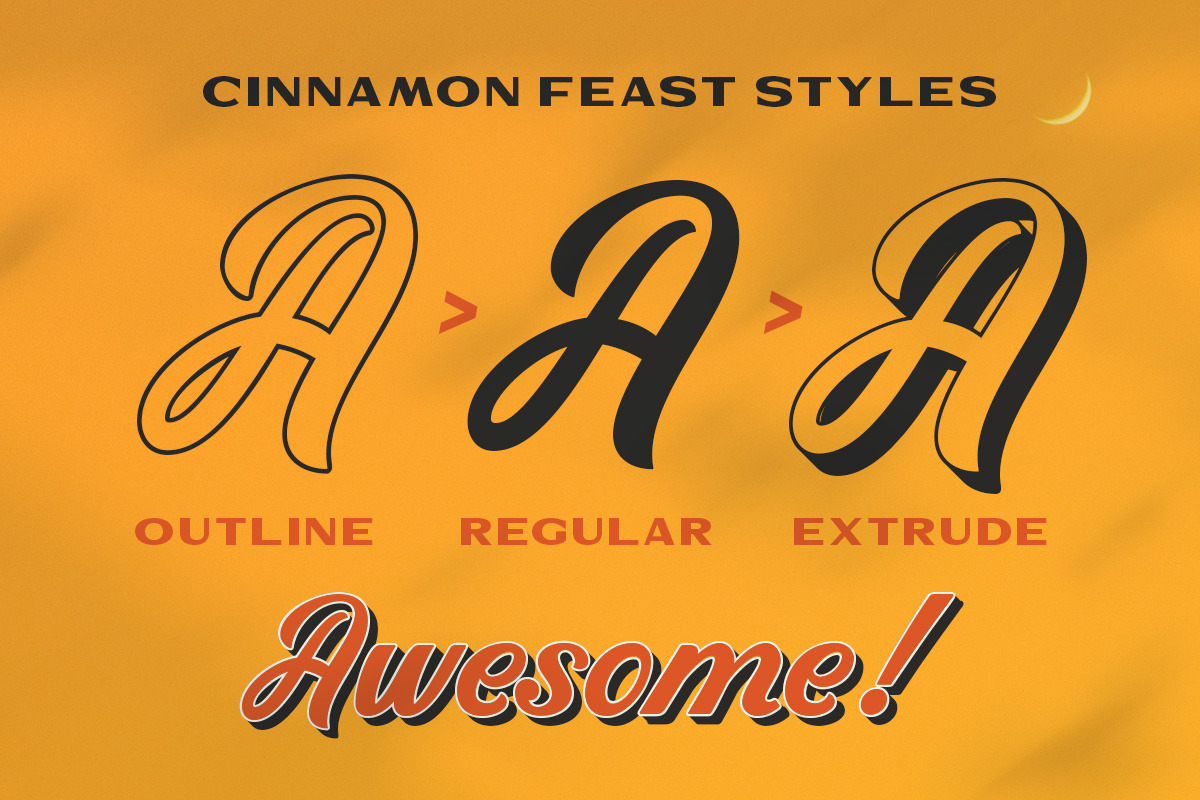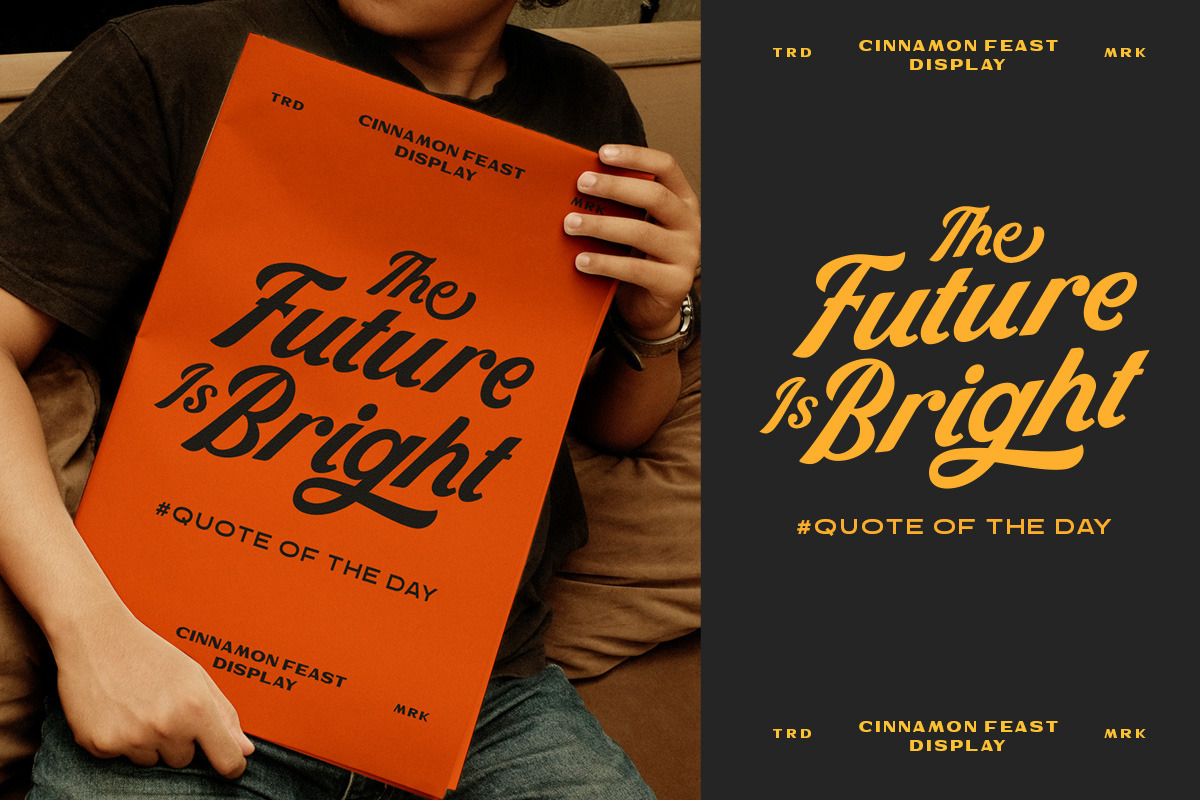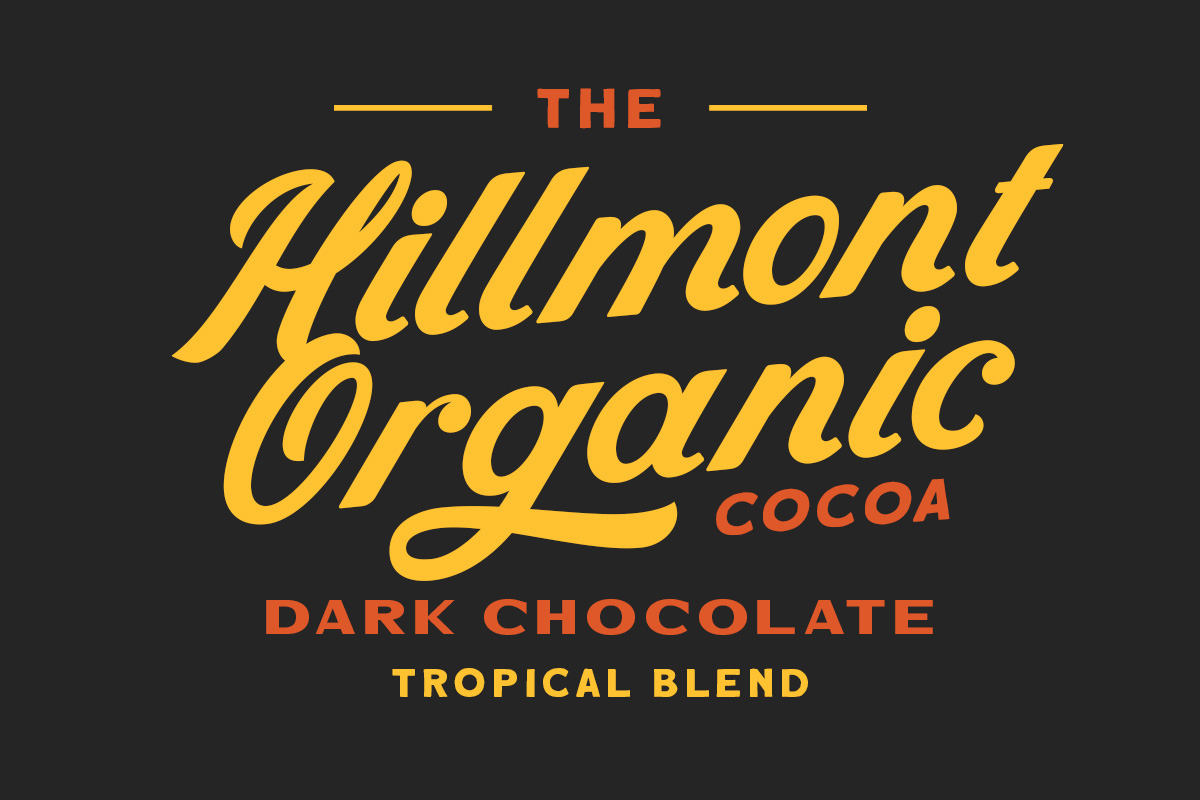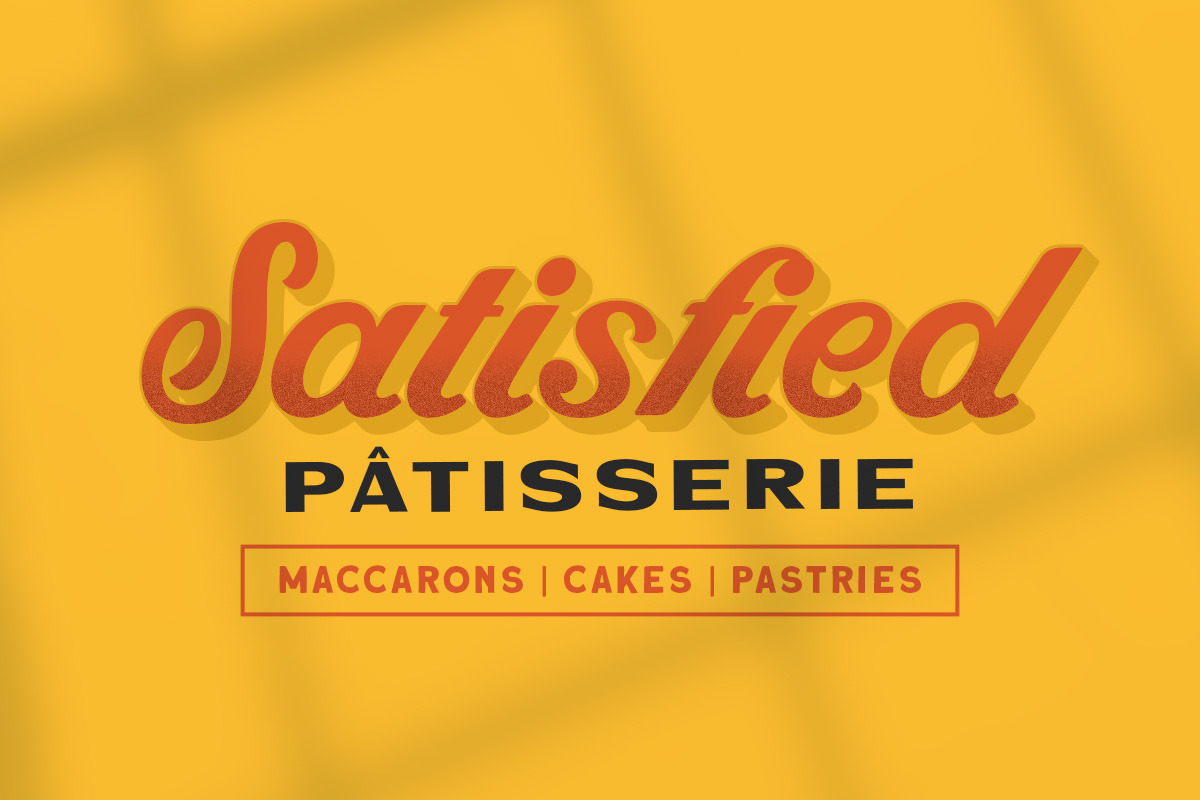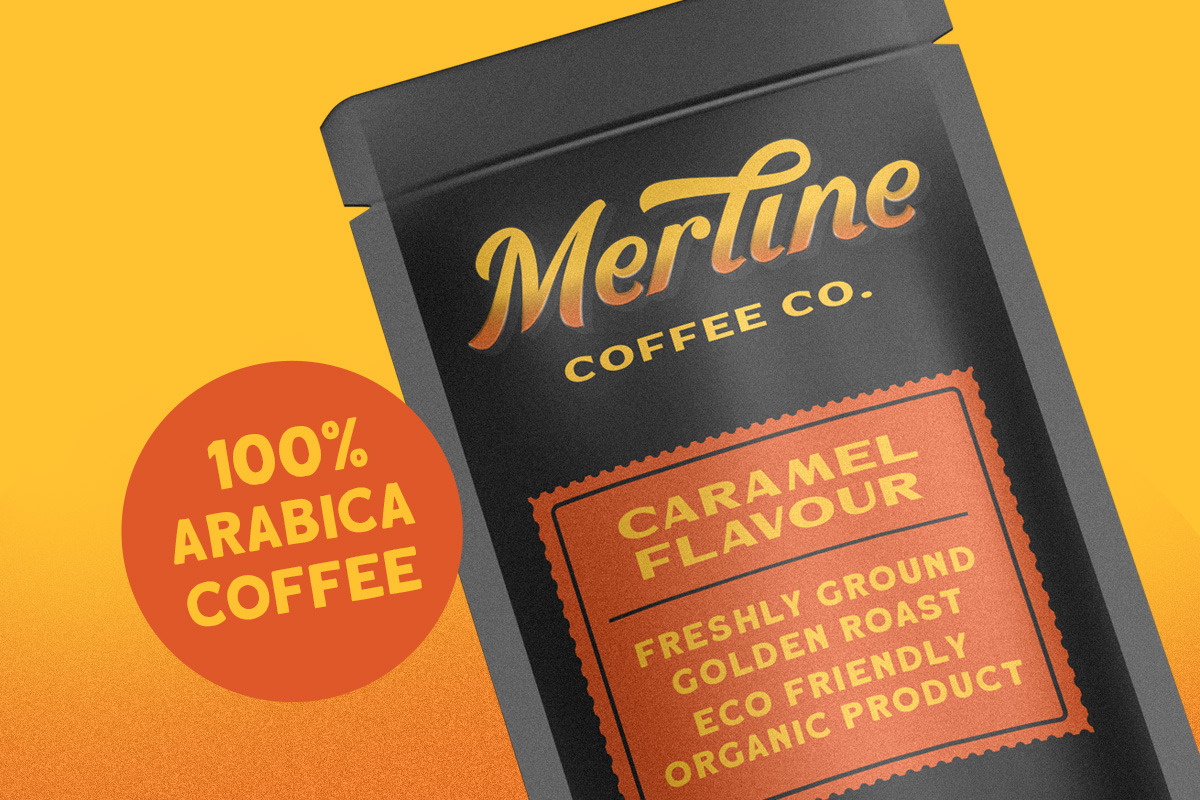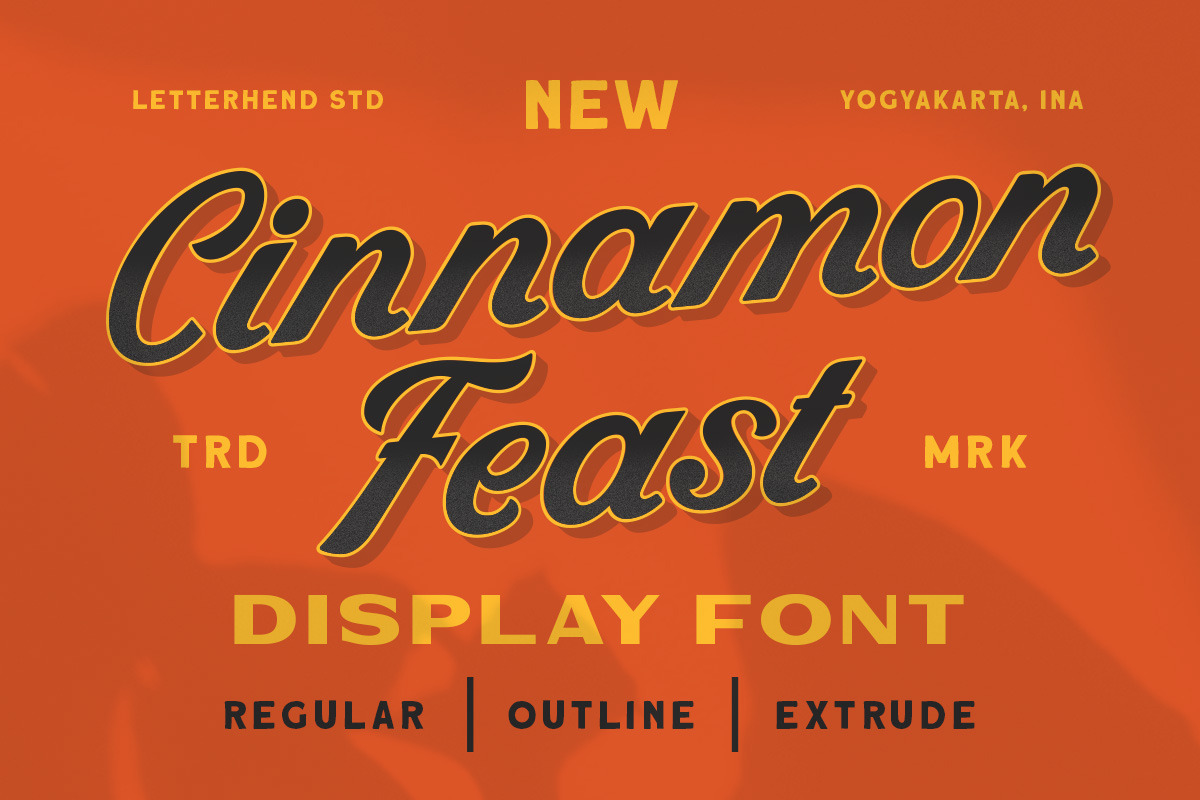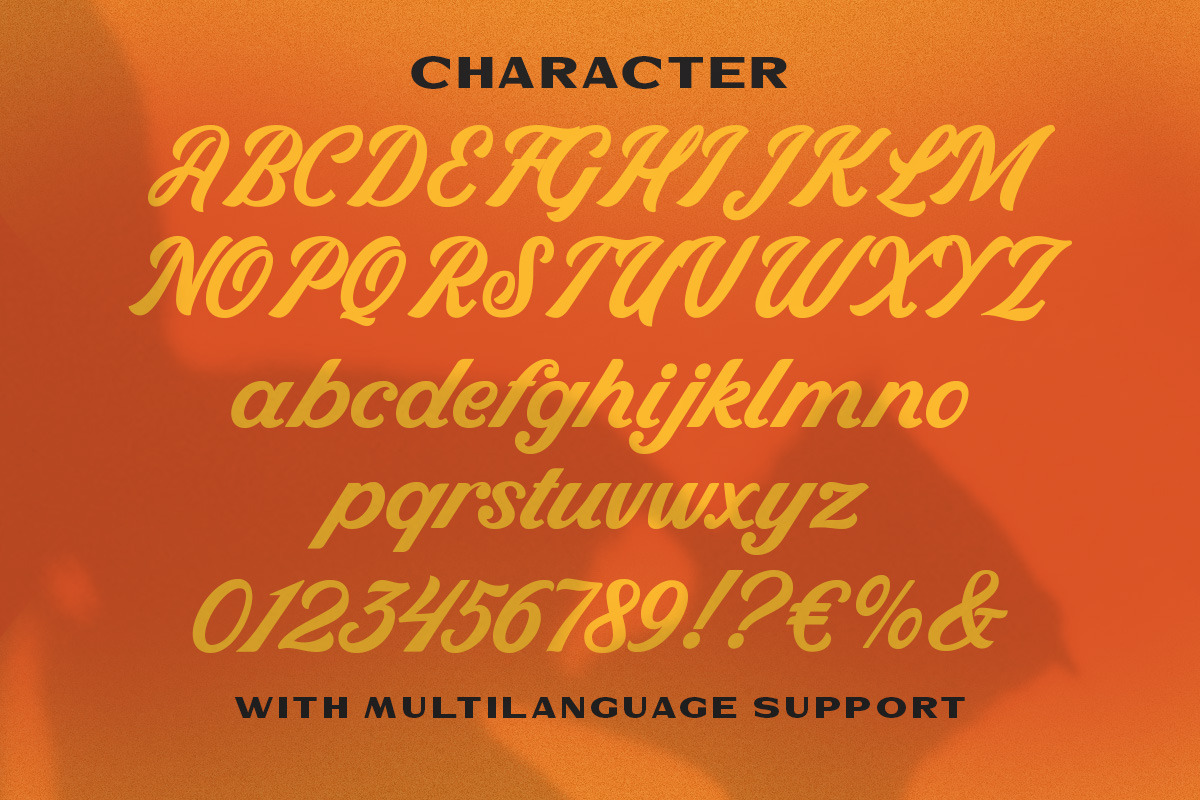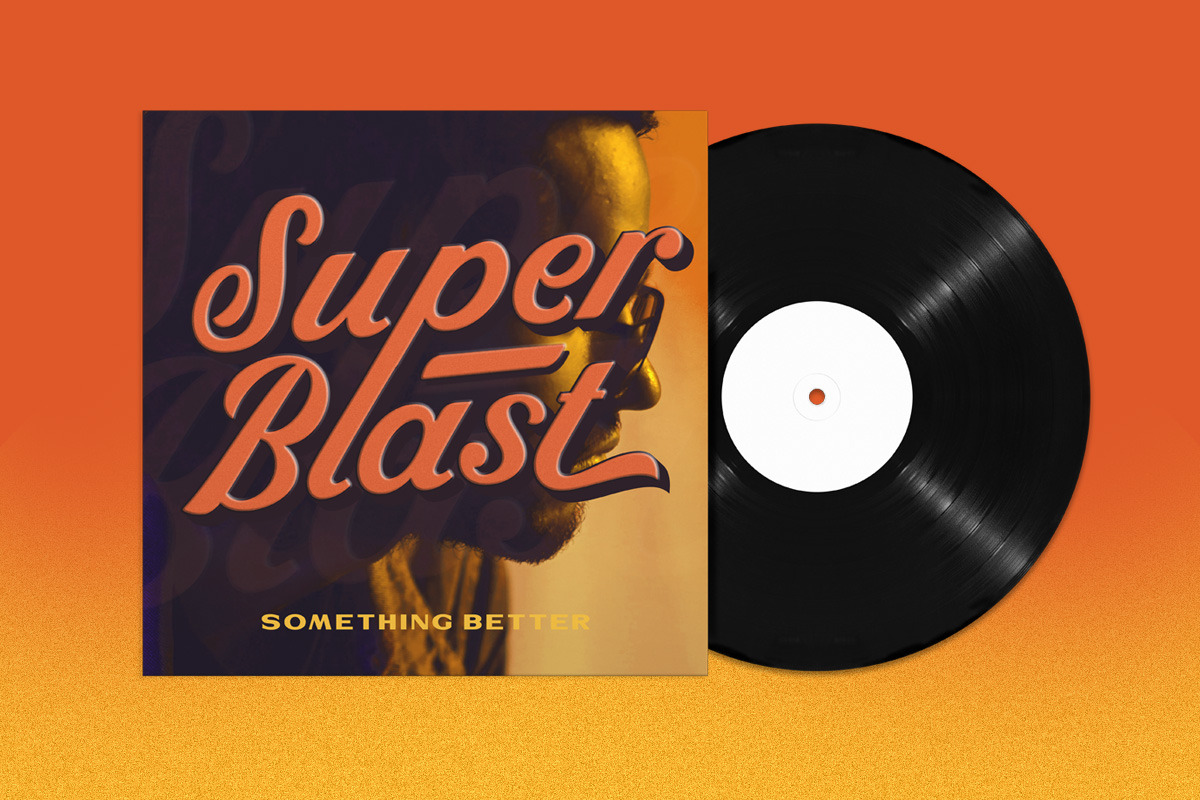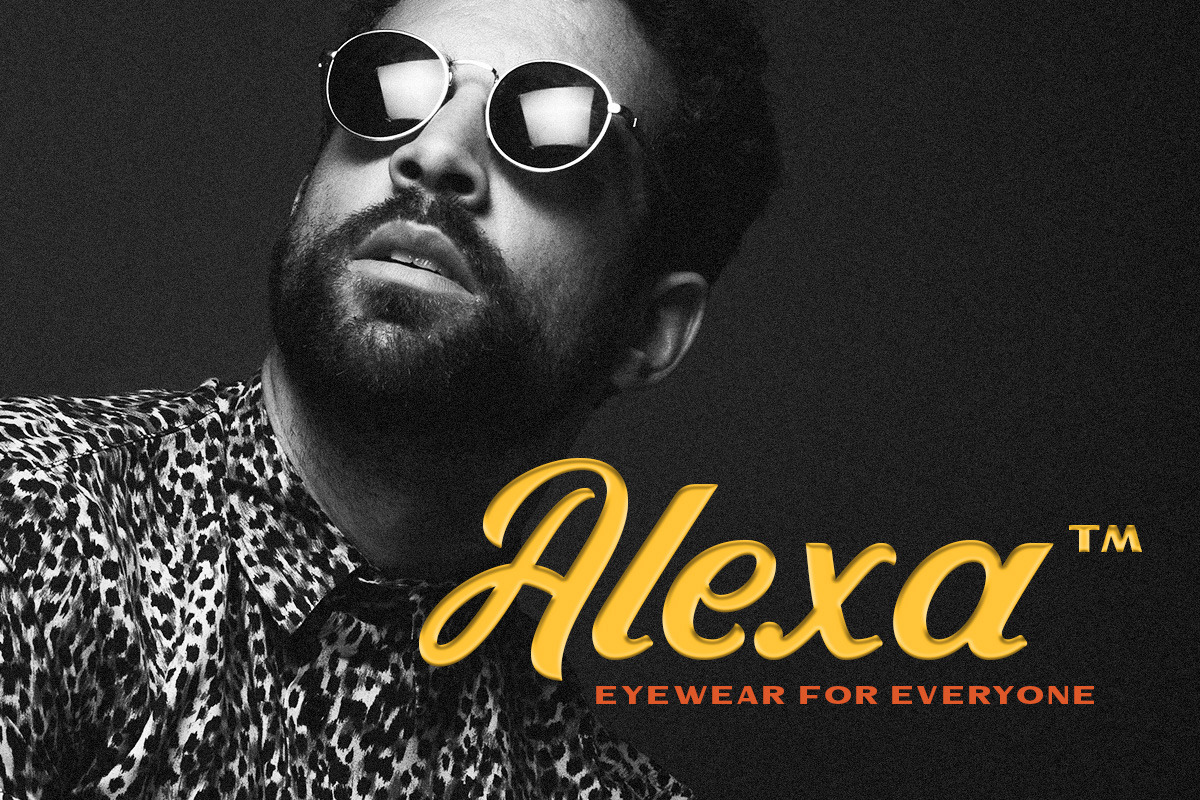
Cinnamon Feast - Display font
Cinnamon Feast is a sophisticated classic display font. This typeface has been made carefully to make sure its premium quality. This typeface has can be used for modern theme or vintage looks. Very suitable for logo, headline, tittle, and the other various formal forms such as invitations, labels, logos, magazines, books, greeting / wedding cards, packaging, fashion, make up, stationery, novels, labels or any type of advertising purpose.